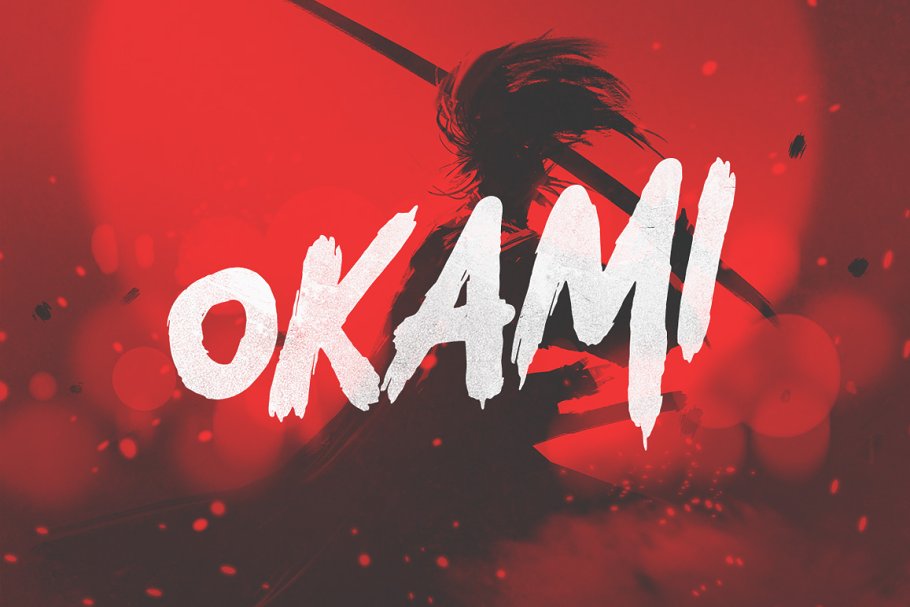
Introducing Okami - Brush Font, the perfect font for medium posters and any project that needs to stand out. Created by Mehmet Tugcu, this font is a part of the Brush Font Bundle, which includes everything you need to create stunning designs.
Okami is a hand-drawn brush font that features rough and bold letters, making it an ideal choice for attention-grabbing headlines. With its uppercase multilingual letters, punctuation, and numbers, Okami is versatile enough to be used in a wide range of projects.
What sets Okami apart from other fonts is its alternate styles for many letters, which can be toggled via Caps Lock. This means that you can experiment with different letter styles until you find the perfect look for your project.
Whether you're creating a logo, branding materials, or print projects, Okami is the font you need to elevate your designs. Its unique style and bold, rough look will capture the attention of anyone who sees it.